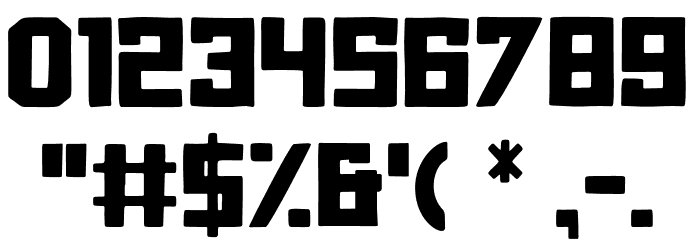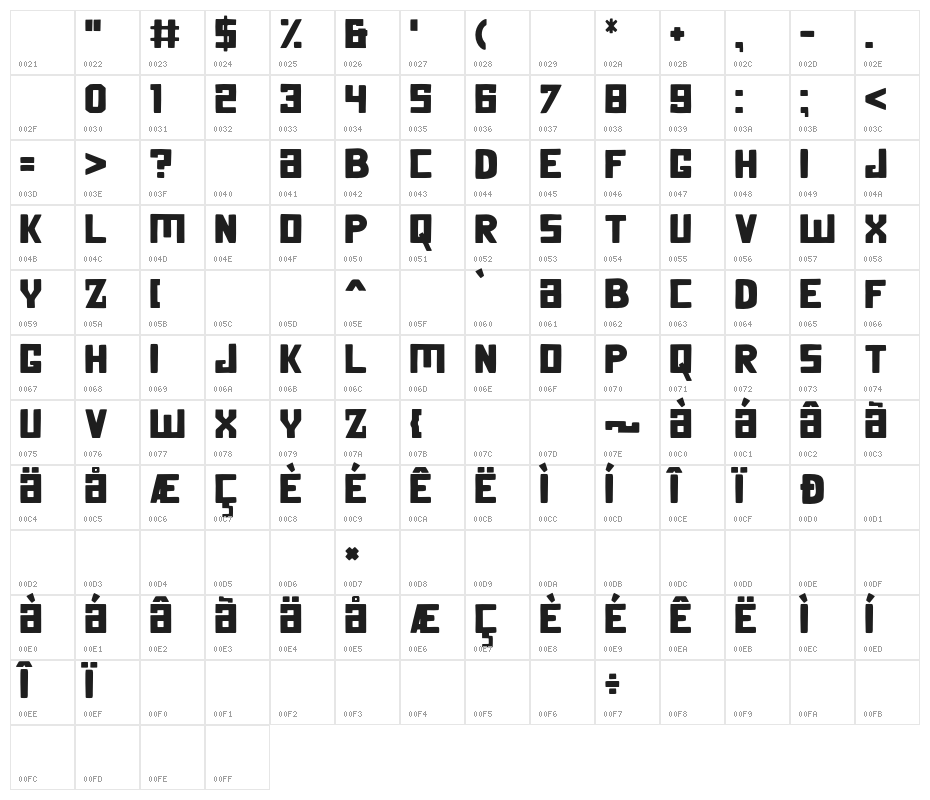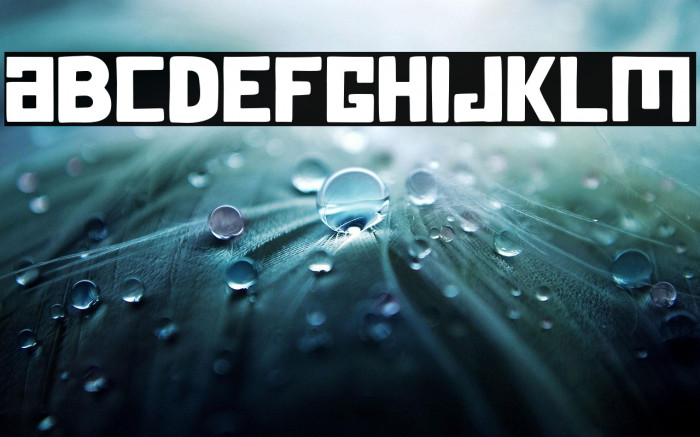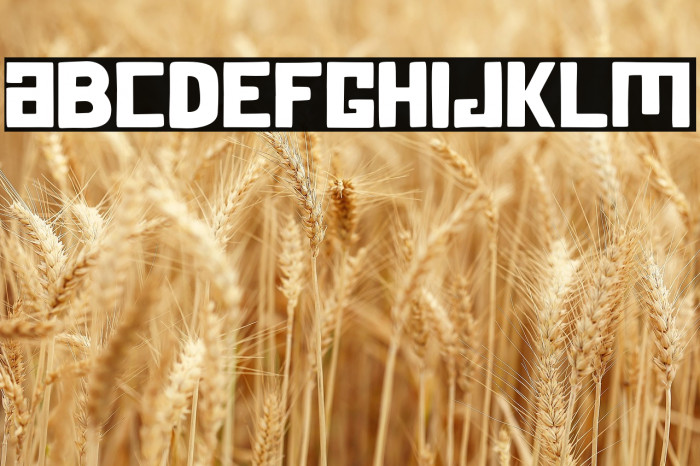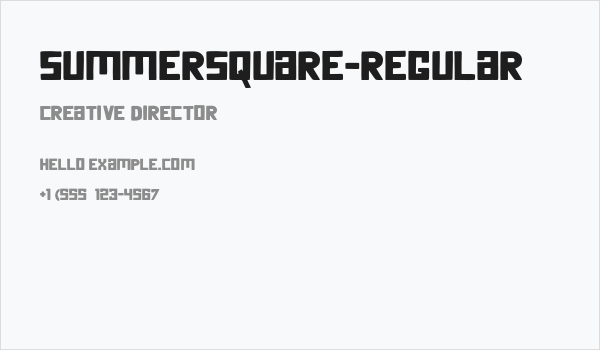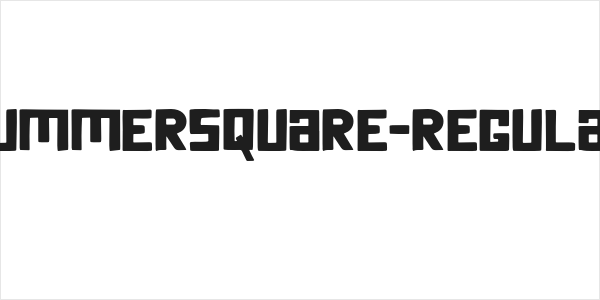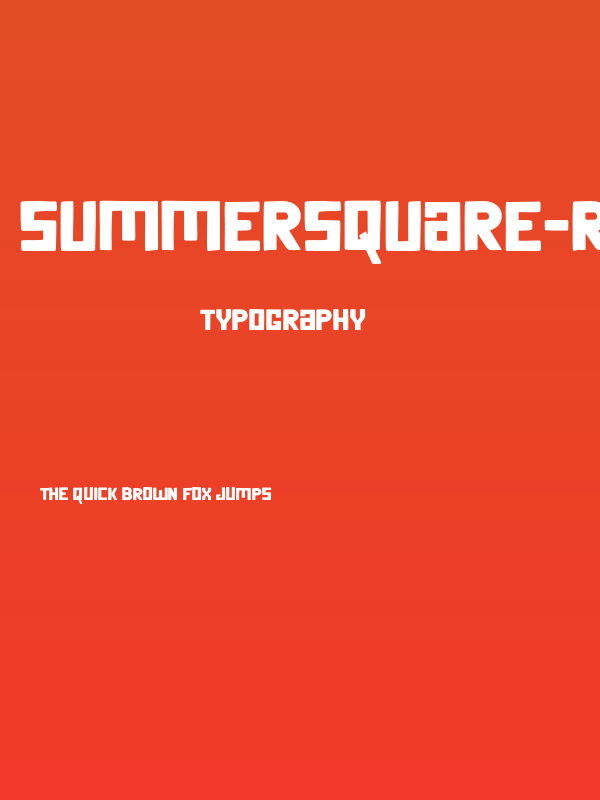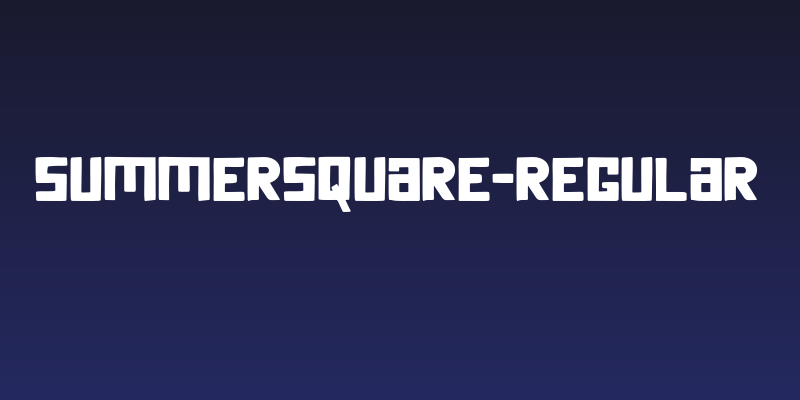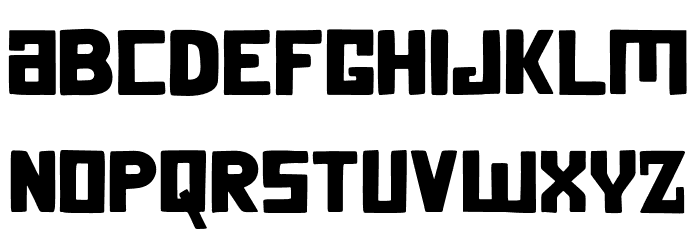
SummerSquare-Regular Font
SummerSquare-Regular Description
This font features a bold, geometric style with a strong presence. The characters are blocky and angular, giving it a modern and assertive look. The uppercase and lowercase letters maintain a consistent weight, with sharp edges and a uniform thickness throughout. The numbers and special characters follow the same design principles, ensuring a cohesive appearance. The font's design is reminiscent of digital or futuristic themes, making it suitable for projects that require a bold statement.
| Proposed Projects | Ideal for branding, posters, headlines, and digital media that require a strong visual impact. |